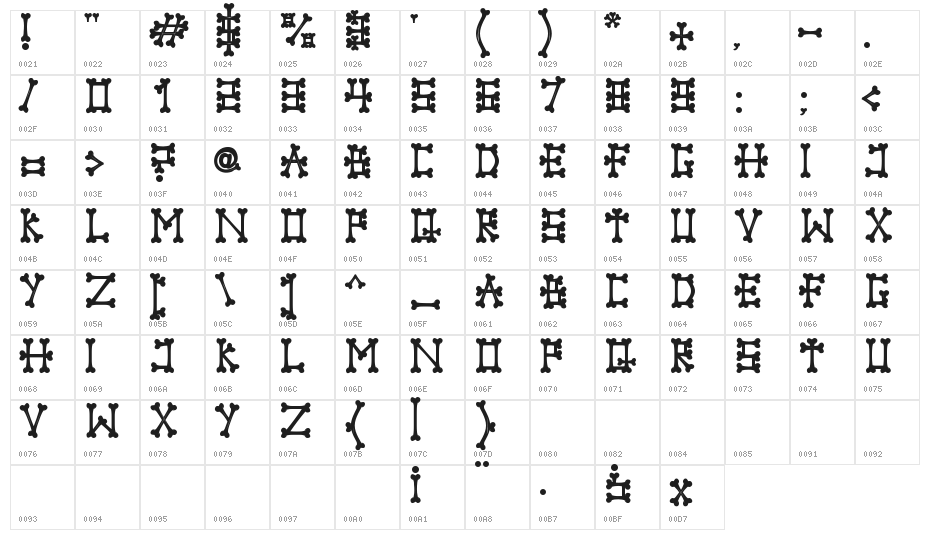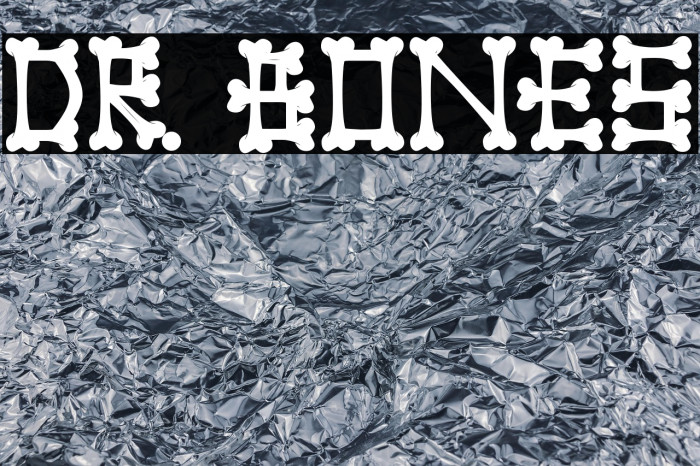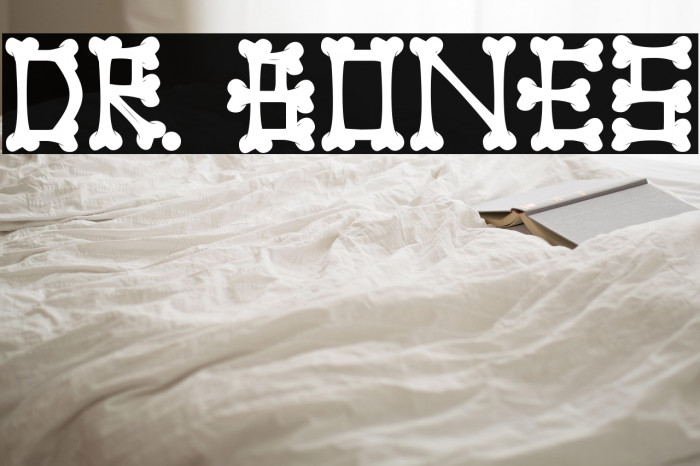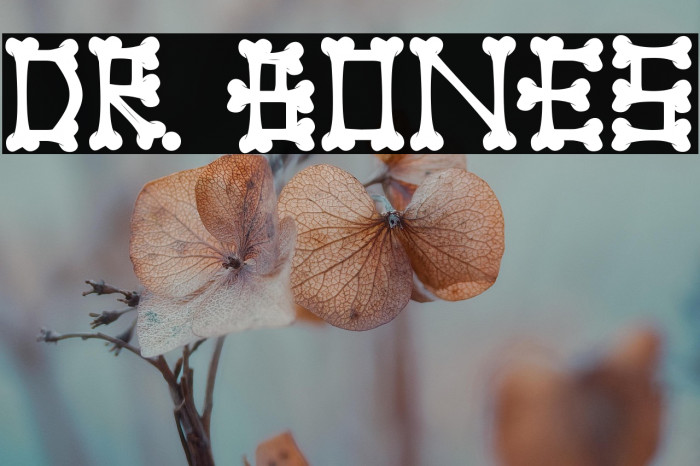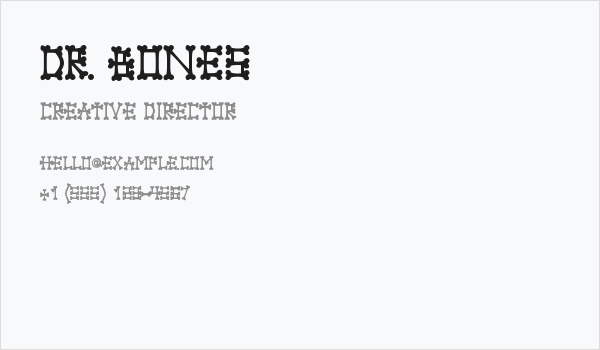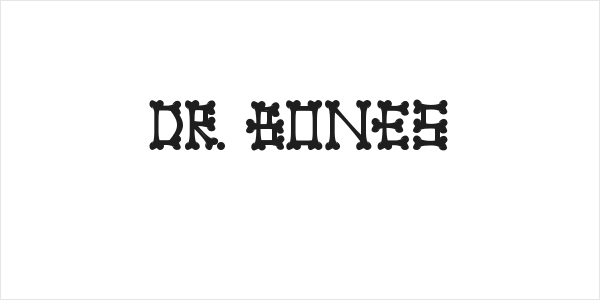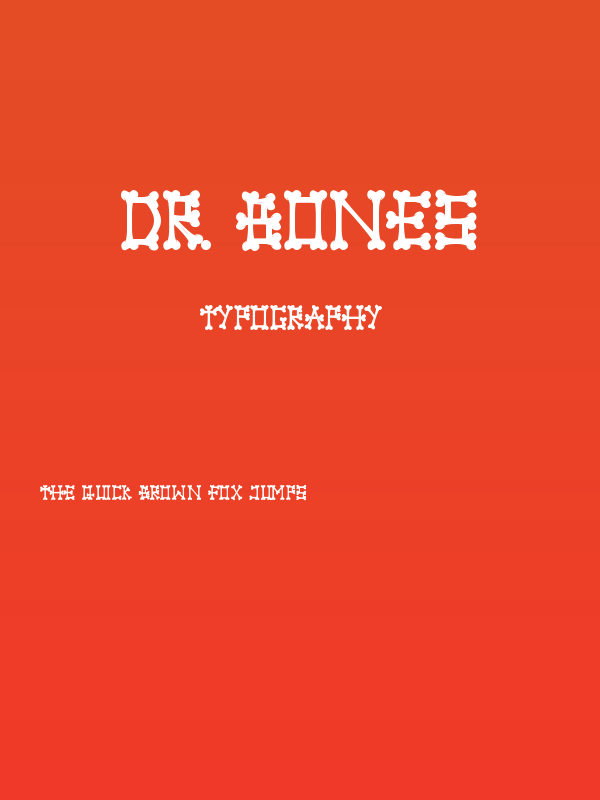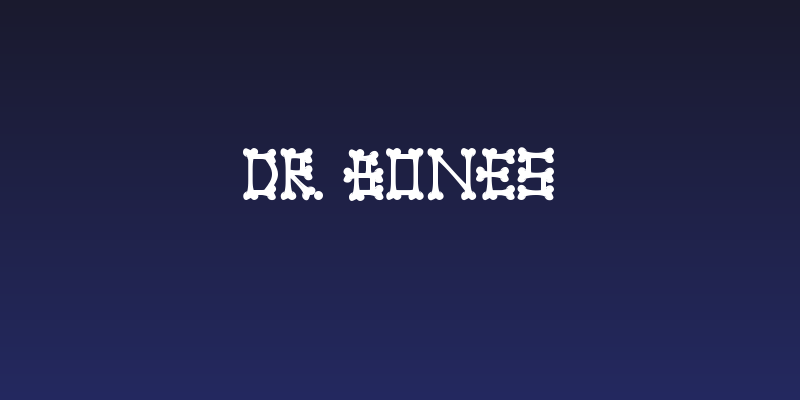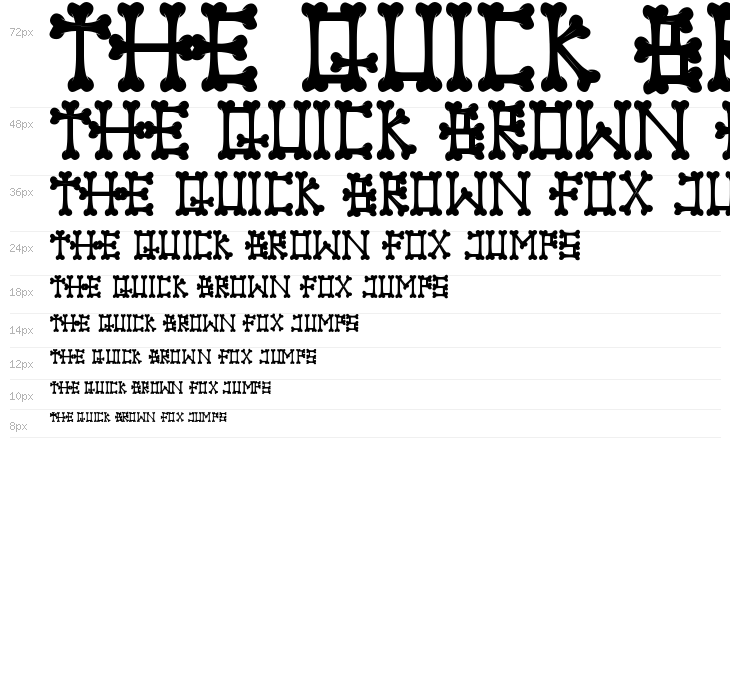
Dr. Bones Font
Dr. Bones Description
This font features a playful and spooky design, reminiscent of bones or skeletal structures. Each character is crafted to resemble interconnected bones, creating a unique and thematic appearance. The bold strokes and distinctive shapes make it ideal for Halloween or horror-themed projects. The uppercase and lowercase letters maintain a consistent style, with numbers and special characters following the same bone-like motif. The font's decorative nature makes it stand out, capturing attention with its creative and thematic design.
| Use Case | Headlines, Logos, Themed Events |
| Proposed Projects | Ideal for Halloween invitations, horror movie posters, themed party decorations, and any project requiring a spooky or playful touch. |